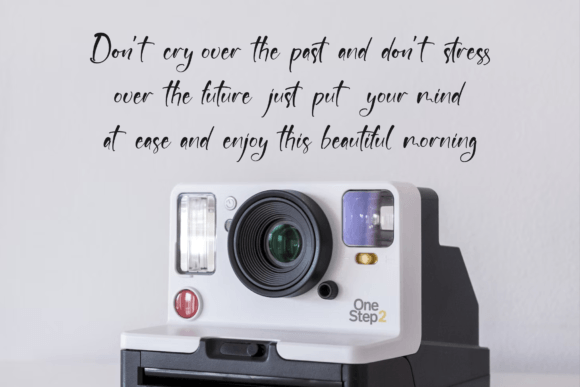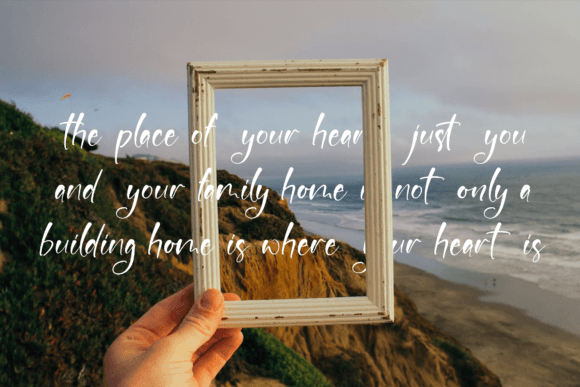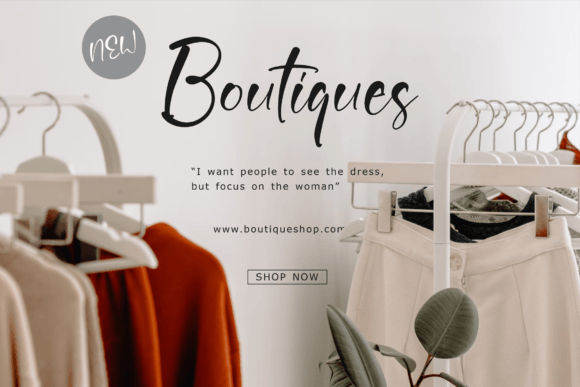
Introduction to Eastabled Font
Have you ever found yourself staring at a blank page, waiting for the perfect spark to ignite your next creative project? For designers, this moment is all too familiar. But what if I told you there’s a font that can transport you to a world of elegance and sophistication, making your designs truly shine?
Enter the Eastabled Font, a flowing handwritten font that exudes an air of refinement and poise. With its high-quality design and timeless style, this font is a treasure trove for designers seeking to elevate their creative projects. Whether you’re working on a branding campaign or a digital design, the Eastabled Font is sure to be a valuable addition to your design resource arsenal.
Key Features of Eastabled Font
- High-quality design with a transparent background, ideal for creative projects.
- Resolution-independent, ensuring crisp and clear text at any zoom level.
- Unique, modern design that can add a touch of elegance to any project.
- Perfect for use as a design resource, suitable for logos, typography, and branding materials.
Honest Review: Eastabled Font
I recently had the chance to work with the Eastabled Font, and I must say it’s been a great addition to my design resource arsenal. As a designer, I’m always on the lookout for high-quality fonts that can elevate a creative project. And Eastabled Font certainly delivers.
One of the things I love about Eastabled Font is its versatility. It comes in a range of weights and styles, making it perfect for a variety of design projects. Whether you’re creating a logo, typography-based artwork, or even a brochure, Eastabled Font is sure to impress. ✨
Here are some of the key features that make Eastabled Font stand out:
- Transparent background, allowing for easy customization
That being said, there are a few limitations to be aware of. For example, the font may not be suitable for certain types of projects, such as signage or digital displays. Additionally, some users may find the font’s bold styles a bit too ornate. ⚠️
Overall, I’m thoroughly impressed with Eastabled Font. It’s a fantastic addition to any designer’s toolkit, and I’m excited to see what other creative projects I can use it for. If you’re looking for a high-quality, versatile font, be sure to check out Eastabled Font. It’s a great resource to have in your design arsenal.
Tips for Getting the Most Out of Eastabled Font
Eastabled Font is a high-quality, versatile font that can be used in a variety of creative projects. To get the most out of it, try using it with a transparent background to create a unique design. You can also use it in combination with other design resources to create a cohesive look.
Eastabled Font is commonly used in creative projects such as logos, business cards, and posters. It’s also a great choice for presentations, documents, and social media graphics. With its high-quality design and transparent background, Eastabled Font is a valuable design resource that can help you take your projects to the next level.